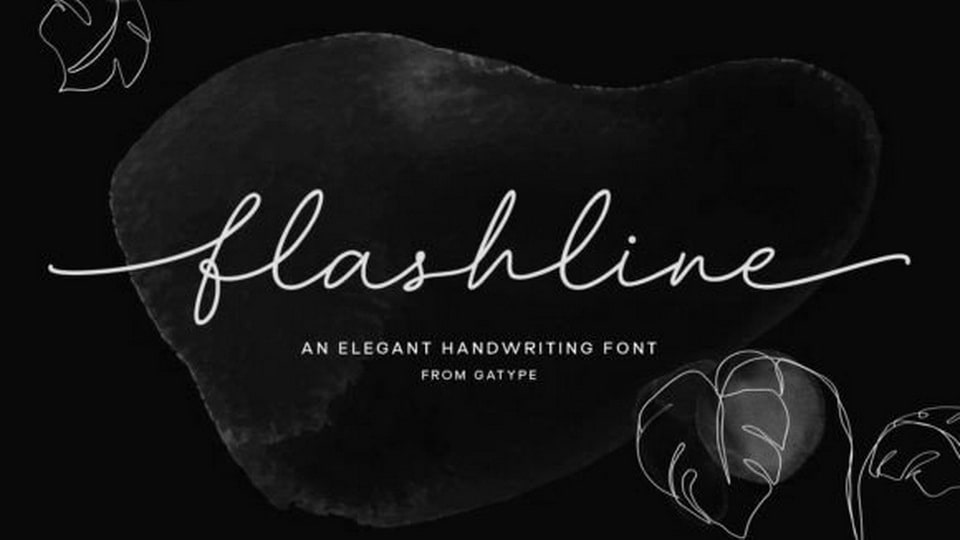
Download Flashline font, a modern and dynamic script typeface. The characters in Flashline feature graceful forms with curved terminals, creating the impression of elegant yet energetic handwriting.